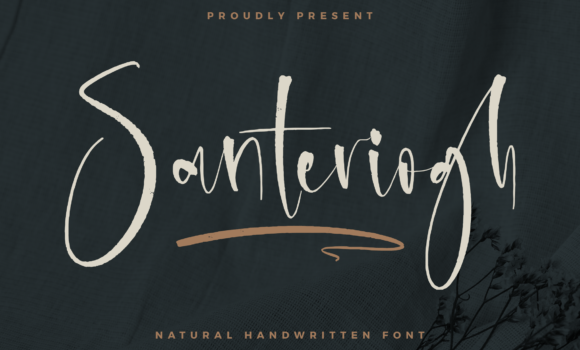
santeriogh
Santeriogh Font – Free Download Introduction to Santeriogh Font Santeriogh is a romantic and sweet calligraphy typeface with characters that dance along the baseline. 📸 Preview Gallery 6 images 📌 Product Name Santeriogh Font 👤 Author Glorytype Studio 📂 Category